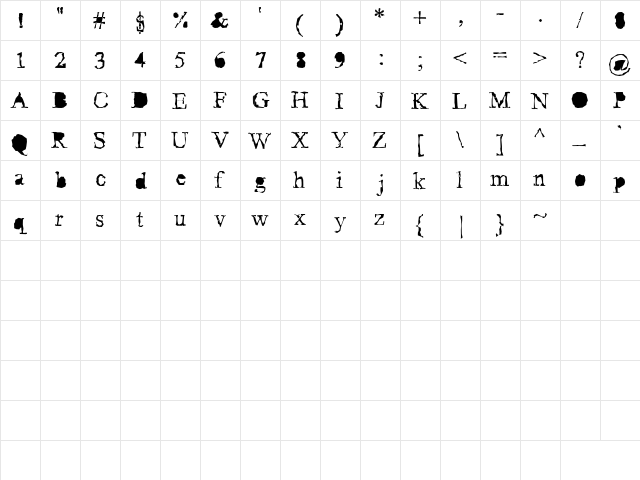
Pudmonkey ShrapnelFree Regular
Design Context for Pudmonkey ShrapnelFree Typeface
Pudmonkey ShrapnelFree is a composed and adaptable typeface that performs quietly and consistently across a wide range of design contexts.